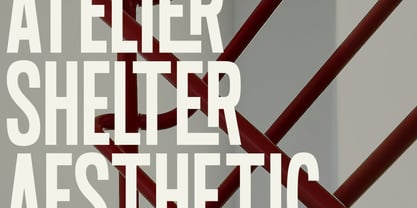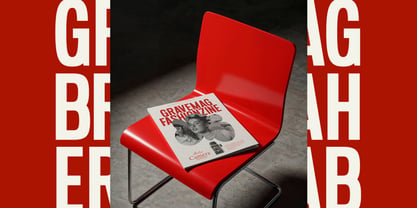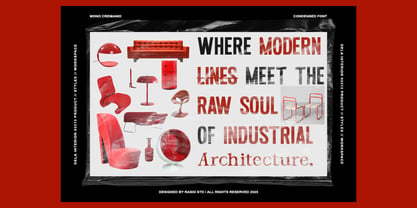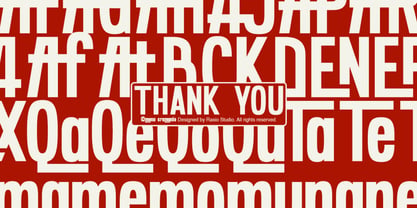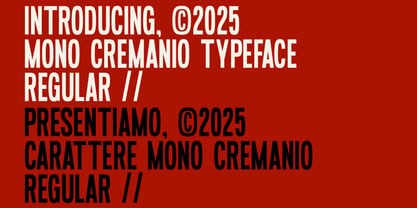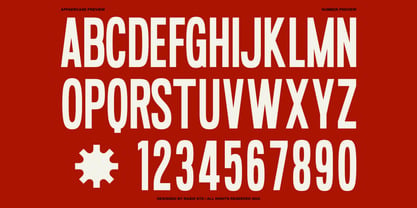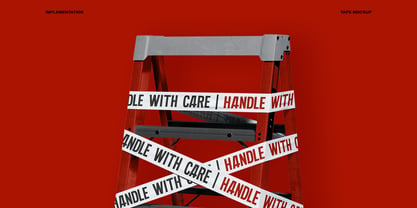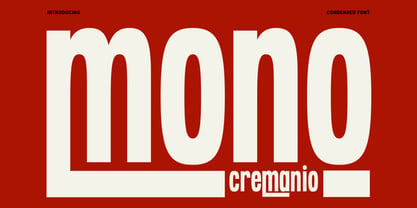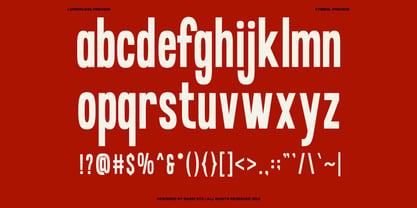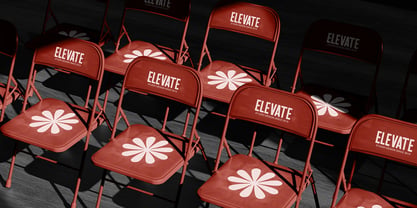
Mono Cremanio
by Rasio Studio
The Mono Cremanio Font Family was designed by Fajar Indra and published by Rasio Studio. Mono Cremanio contains 1 styles. More about this family
Cremanio is a bold condensed sans serif typeface that merges industrial confidence with minimalist form. Its tall structure and tight spacing create a striking visual rhythm, ideal for impactful headlines and contemporary branding. Each letter is crafted to maximize presence and balance, giving designs a clean yet assertive tone. With uppercase, lowercase, numerals, and symbols, Cremanio delivers versatility across print and digital media — from posters and logos to packaging and magazine titles.
Designers: Fajar Indra
Foundry: Rasio Studio